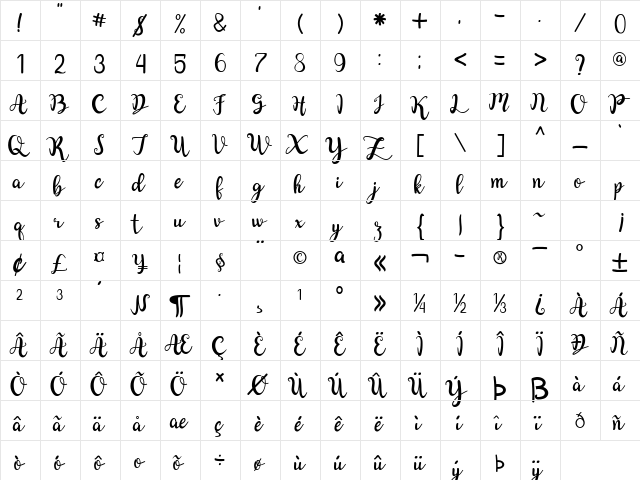
Naifah Handwriting Regular
Design Context for Naifah Handwriting Typeface
Naifah Handwriting flows with the natural rhythm of handwritten lettering, making it ideal for designs that call for warmth and personal expression.
Font Pairing: Combine Naifah Handwriting with a simple geometric sans for maximum contrast — the tension between flowing curves and clean structure is a classic typographic pairing.
Pro Tip: Pair Naifah Handwriting with a clean sans-serif for supporting text. The contrast between fluid script and geometric structure creates an elegant typographic hierarchy.